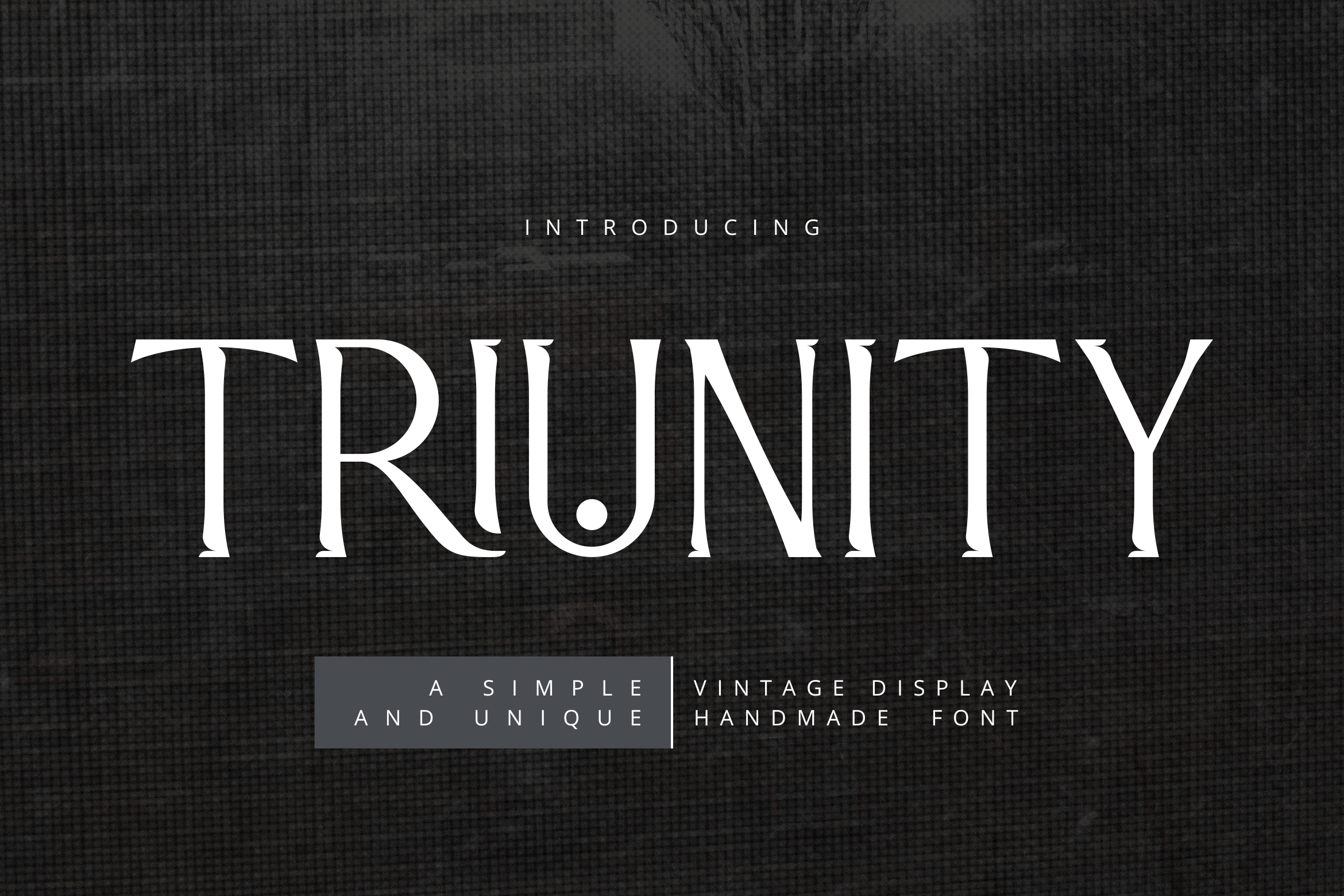
Triunity Vintage Display Font
Triunity Vintage Display Font - is a new font that is authentic and suitable for many of your visual needs, like for invitation, greeting cards, branding materials, business cards, quotes, posters, and more!
- special character for Alternates and Ligatures